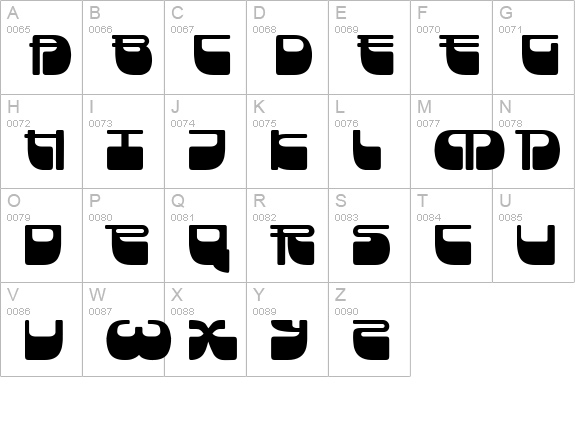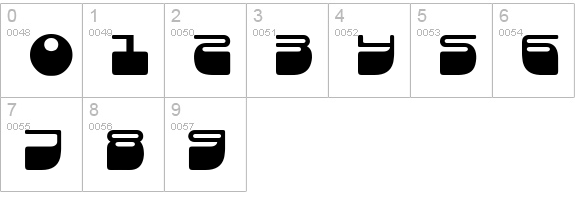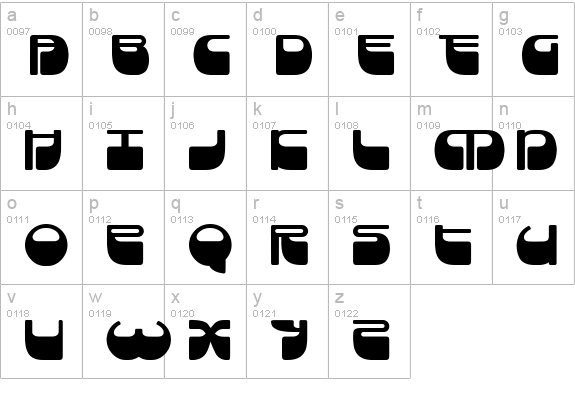
Frigate Font Details
Frigate font is a sleek and modern typeface that exudes sophistication and elegance. With its clean lines and sharp edges, Frigate is perfect for creating eye-catching designs that demand attention. This versatile font is suitable for a wide range of projects, from branding and advertising to web design and editorial work. What sets Frigate font apart is not only its striking appearance but also its accessibility. This font is available for free download at FontsMarket.com, making it easy for designers and creatives to incorporate it into their projects without breaking the bank. Whether you're looking to add a touch of class to your next design or simply want to experiment with a new typeface, Frigate font has you covered. Don't miss out on the opportunity to elevate your designs with the timeless elegance of Frigate font. Download it for free today and let your creativity soar.